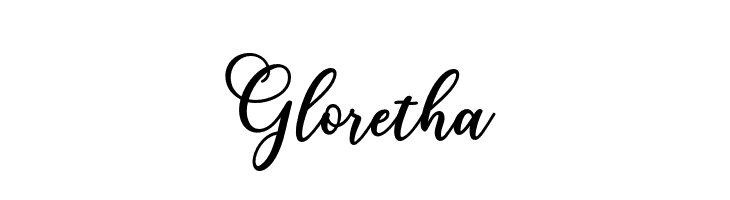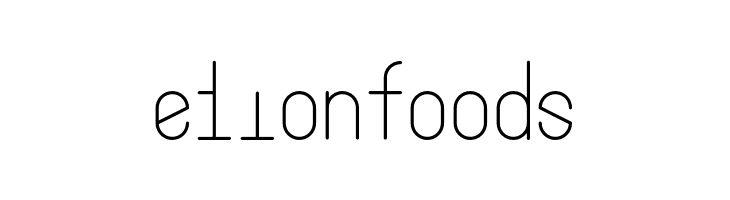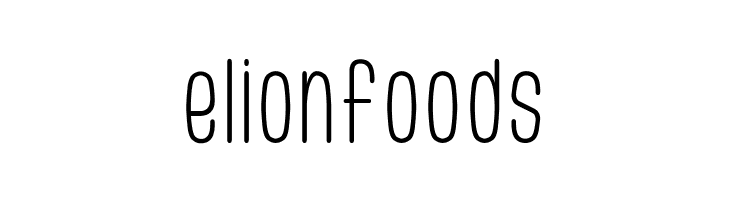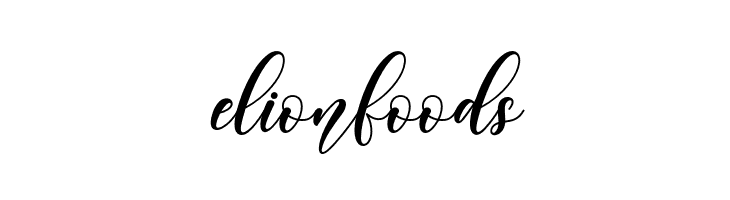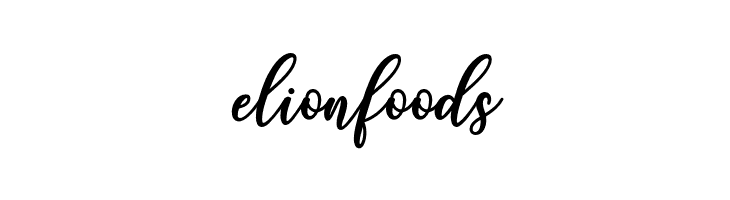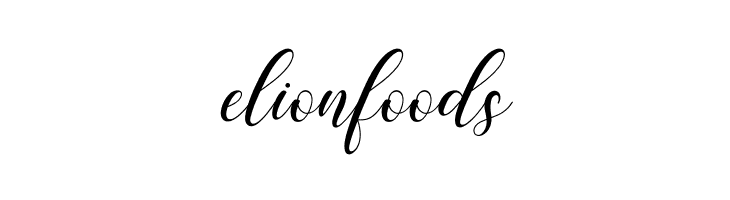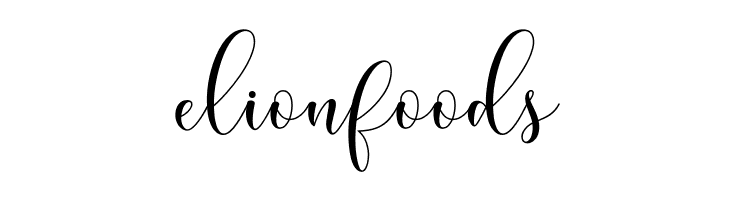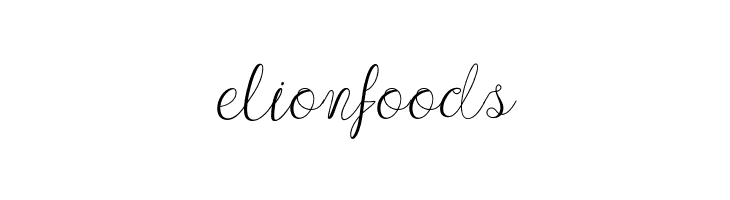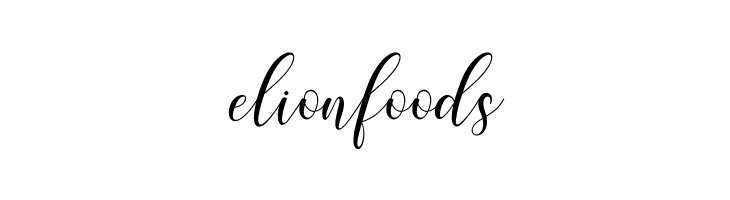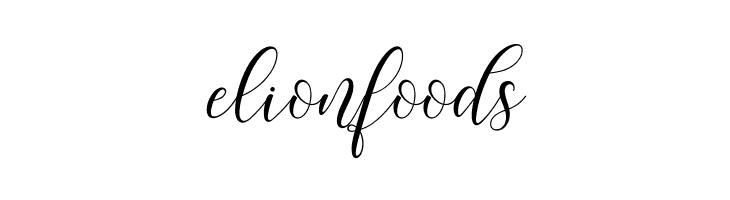
A modern, geometric monospaced font with a minimalist design.
A clean, modern monospaced font with rounded, narrow characters.
An elegant and flowing script font with ornate uppercase and smooth lowercase letters.
An elegant script font with intricate swirls and decorative flourishes.
A sophisticated script font with elegant swashes and flowing cursive letterforms.
An elegant script font with flowing, interconnected letters and decorative swirls.
An elegant script font with flowing, interconnected letters and decorative swashes.
An elegant script font with intricate swashes and flowing lines.
An elegant, flowing script font with refined cursive letters and ornate flourishes.
A graceful and elegant script font with flowing, ornate swashes.